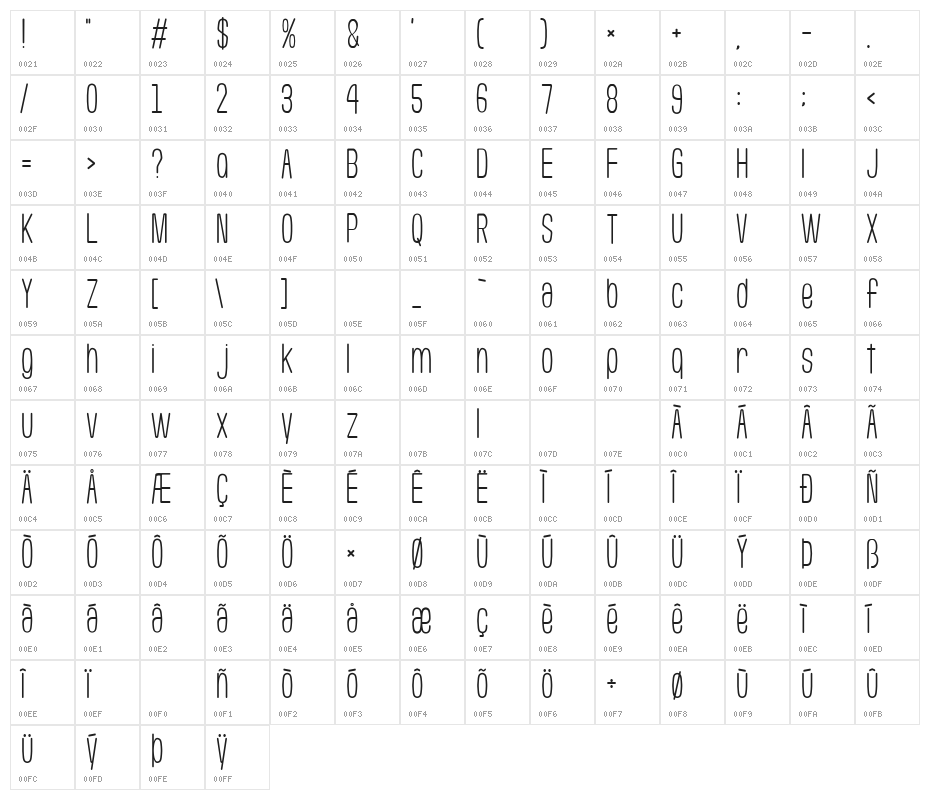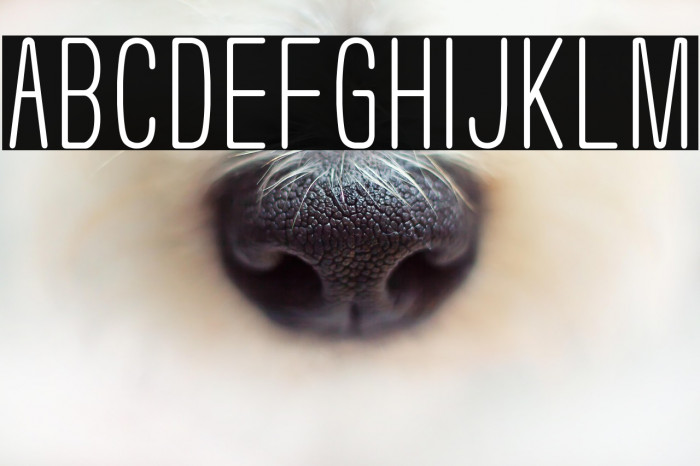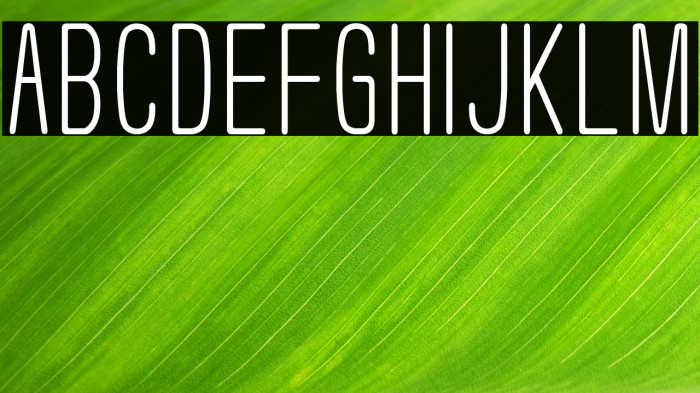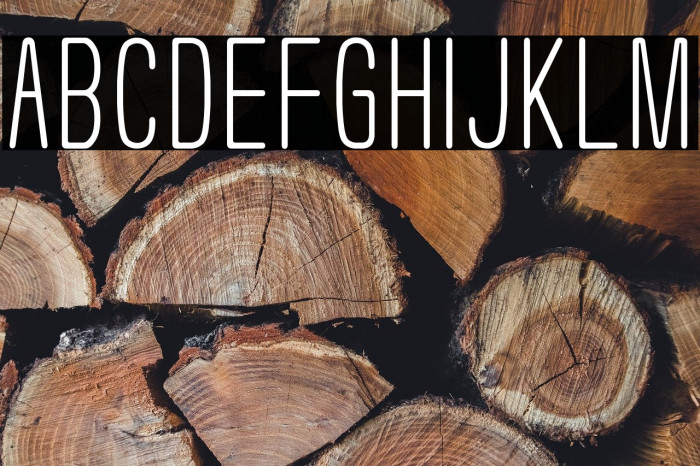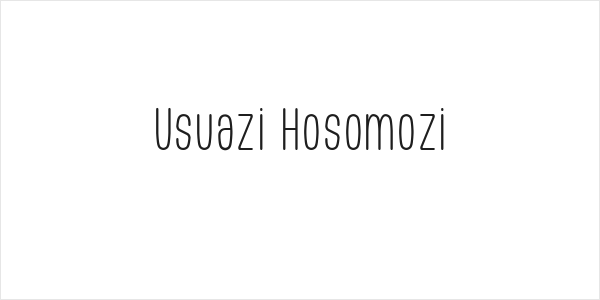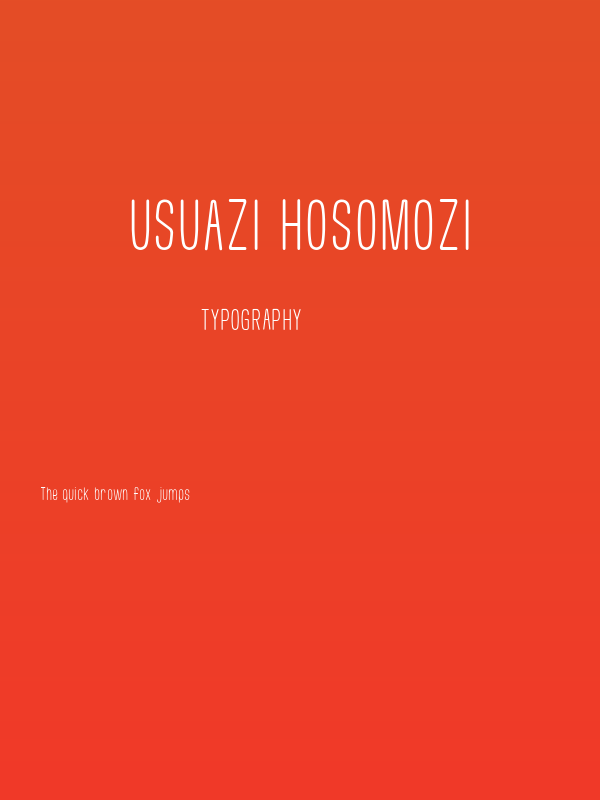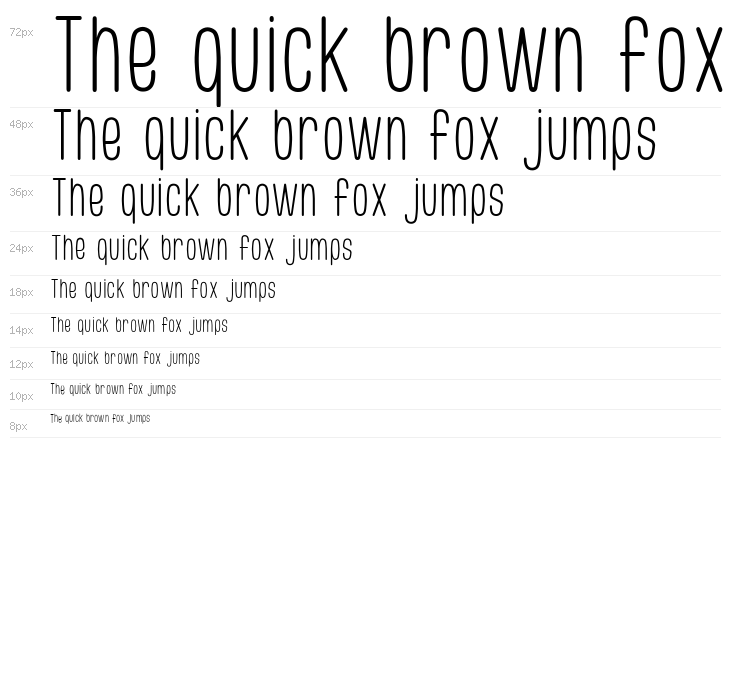
Usuazi Hosomozi Font
Usuazi Hosomozi Description
This font features a clean and modern design with a monospaced style, characterized by uniform character width. The letters are tall and narrow, with rounded edges that give a friendly and approachable feel. The uppercase and lowercase letters maintain a consistent height, enhancing readability. The numerals are straightforward and align well with the overall aesthetic. Special characters are distinct and maintain the same rounded and narrow characteristics. This font is suitable for digital displays and modern design projects, offering a sleek and contemporary look.
| Use Case | Digital displays, Coding interfaces, Modern branding |
| Proposed Projects | Ideal for coding interfaces, digital displays, modern branding, and minimalist design projects. |